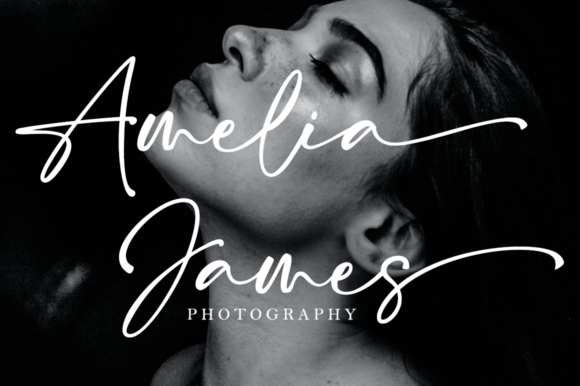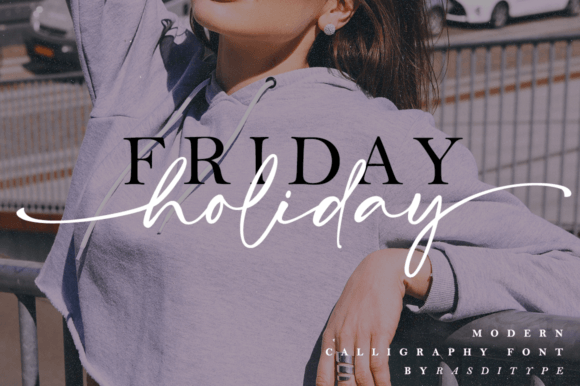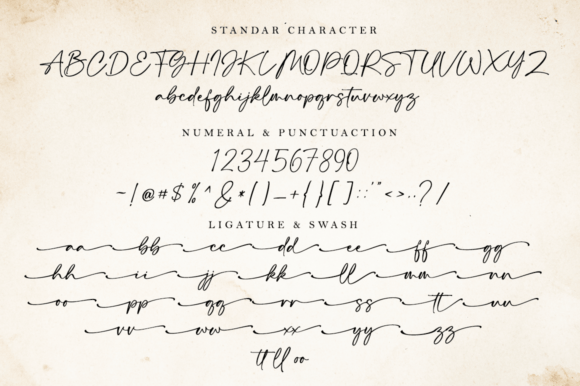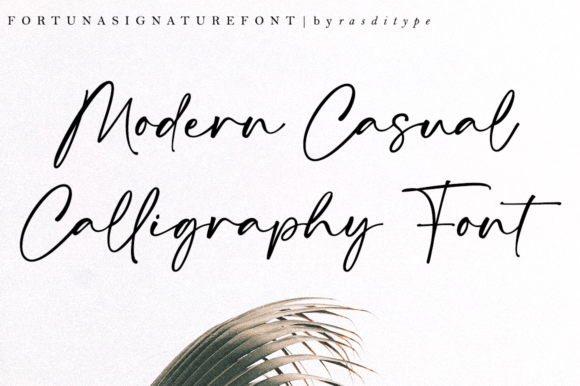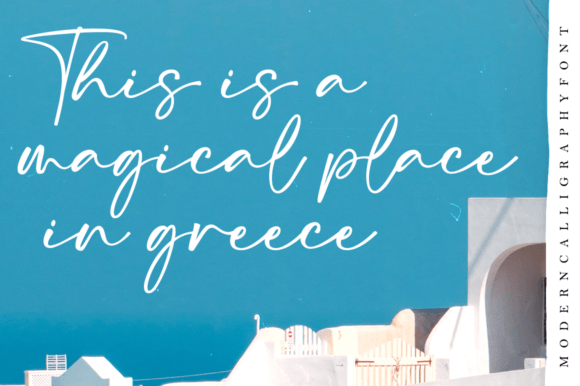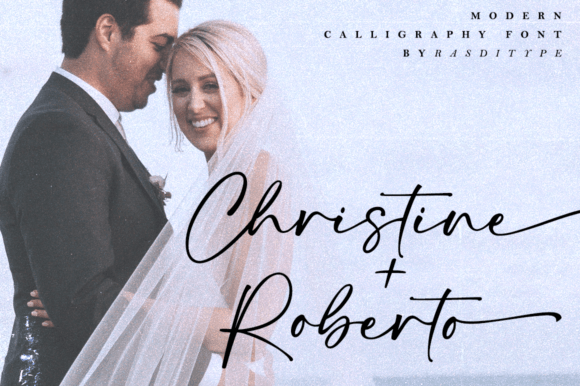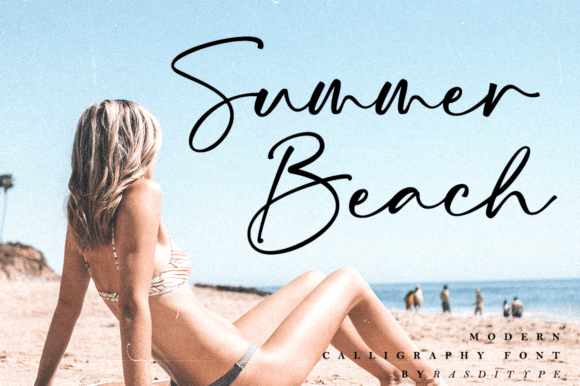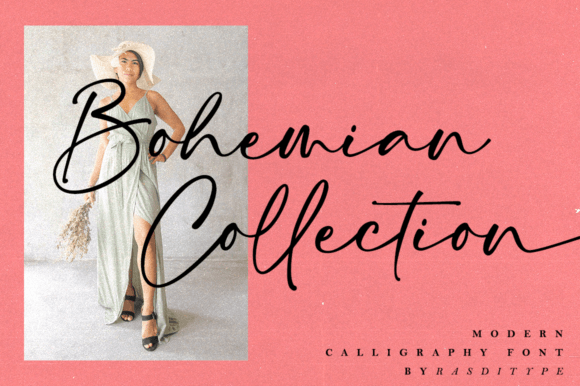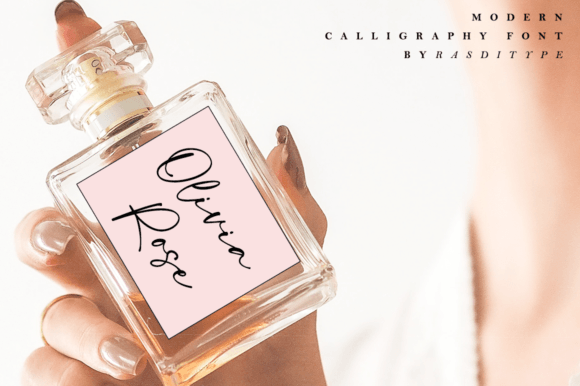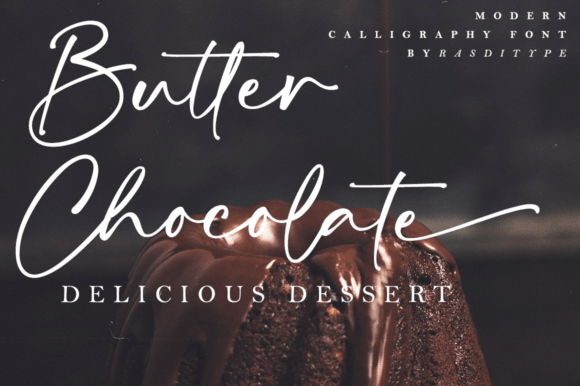
Fortuna Signature Font
About Fortuna Signature Font
**Fortuna Signature** is a beautiful handwritten font that shines in various design applications. With its distinct and timeless style, this font is perfect for creating stunning logos, wedding stationery, photography watermarks, modern websites, and much more. Its versatility and elegant design make it a valuable asset for crafting spectacular and visually appealing designs.
One of the standout features of Fortuna Signature is its beautiful and distinctive handwritten style. Each letter is meticulously crafted to exude a sense of beauty and sophistication, making this font an excellent choice for projects where you want to create a unique and timeless impression.
Fortuna Signature’s versatility makes it a valuable tool for designers. It can be used for crafting logos and branding materials, enhancing wedding stationery, adding professional watermarks to photography, and giving modern websites an elegant touch. Its elegant and timeless appearance ensures that your work is both visually captivating and memorable.
In branding and logo design, Fortuna Signature adds a touch of sophistication and uniqueness to your brand identity, making your business stand out and leave a lasting impression.
For wedding stationery, this font enhances the beauty and elegance of your designs, creating a romantic and memorable atmosphere for the special day.
In photography, Fortuna Signature provides a professional and stylish watermark that adds a signature touch to your images.
In summary, Fortuna Signature is a beautiful handwritten font that is ideal for a wide range of design projects. Its versatility and timeless style make it a fantastic choice for creating visually captivating and memorable designs. Embrace Fortuna Signature to infuse your work with a sense of beauty, elegance, and sophistication that resonates with your audience.